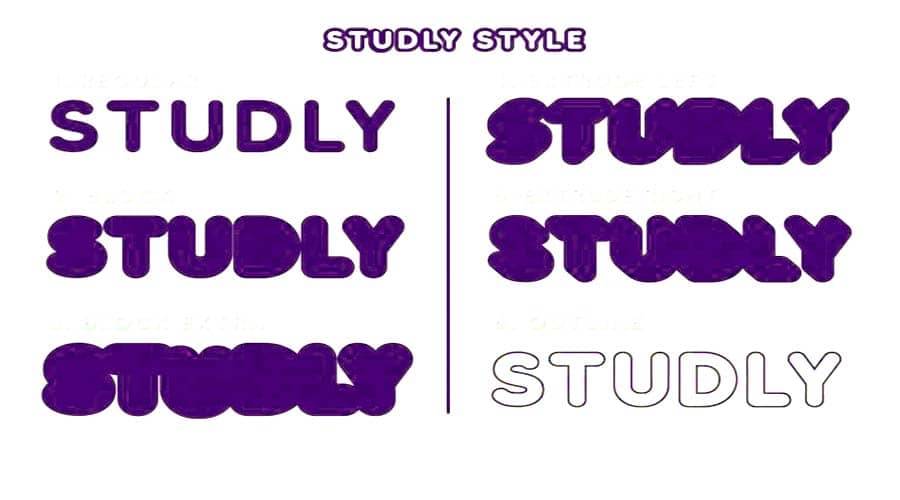
Studly Font Family
The Studly Font Family is now ready! For your new projects, a fun and dynamic font. On September 24, 2018, craft supply co developed and shared it.
Studly is a bold sans serif font family including both strong and defined font files. There are six different styles available. It also supports uppercase and lowercase letters, punctuation, symbols and numerals, style set alternates, ligatures, and therefore more. The font is suitable for use with window, Mac and Android. This font is available in
Studly Font Family is perfect for logos, gift items, quotes, posters, marketing, stationery, design titles, blog headers, art quotations, typeface art. The trendy envelope lettering of this font makes any architecture venture look lovely and fashionable.